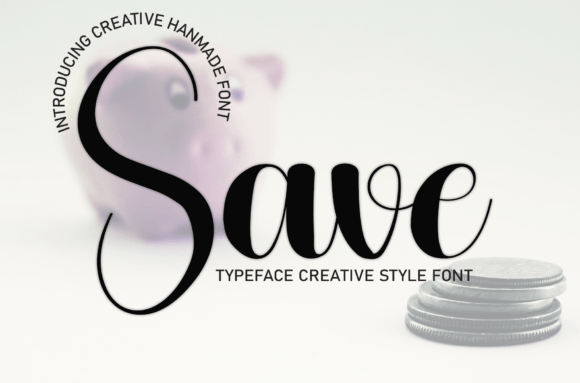
Join the Save font family and embark on a delightful journey of creativity! Designed by the talented William Jhordy, Save is a script font that exudes sweetness and friendliness in every letter. Its fresh and neat appearance makes it an ideal choice for adding a fun touch to your designs.
Immerse yourself in the world of Save, where every curve and stroke is crafted to evoke joy and charm. This font's playful yet elegant personality makes it perfect for adding a personal touch to your projects. Create heartfelt wedding invitations that capture the essence of your love story, or design enchanting birthday cards that spread happiness and laughter. Its versatility also shines in logos, branding, posters, and social media graphics.
With Save, the possibilities are endless. Unleash your imagination and let this font guide you as you create designs that resonate with your audience. Its effortless flow and charming details will captivate their hearts, leaving a lasting impression.
Make Save your go-to font for adding a touch of warmth and whimsy to your creative projects. Its user-friendly nature makes it accessible to designers of all levels, ensuring a seamless and enjoyable experience. Join the Save font family today and discover the joy of creating designs that speak from the heart!